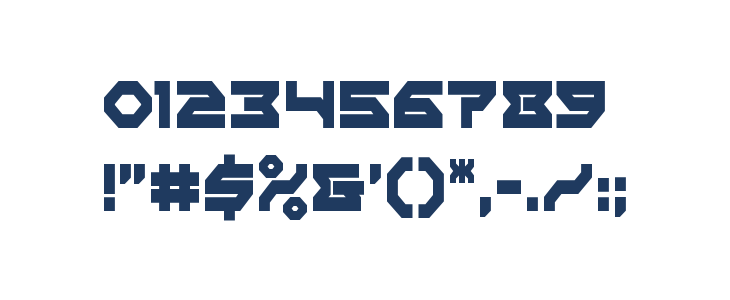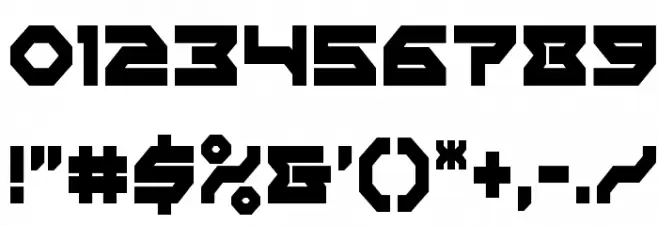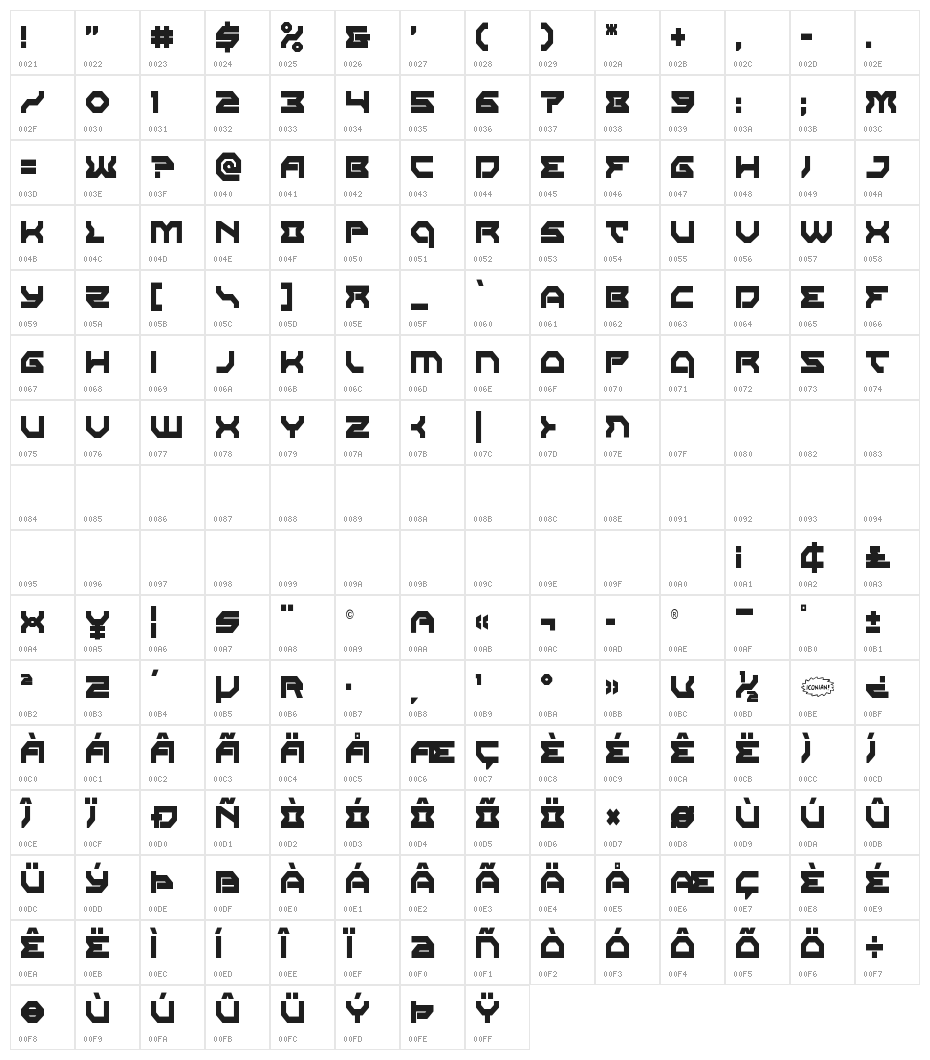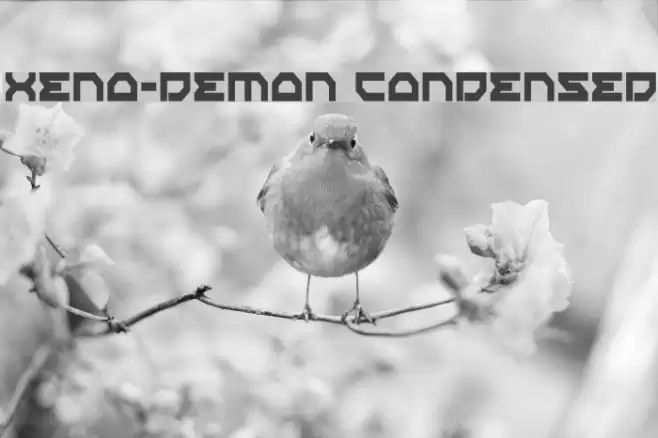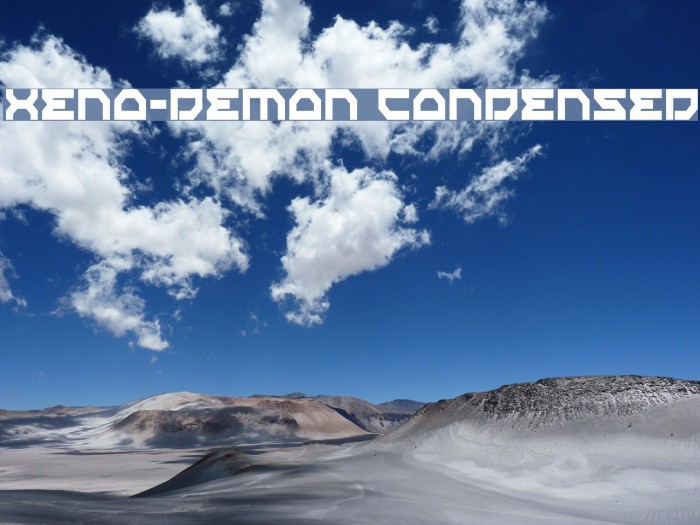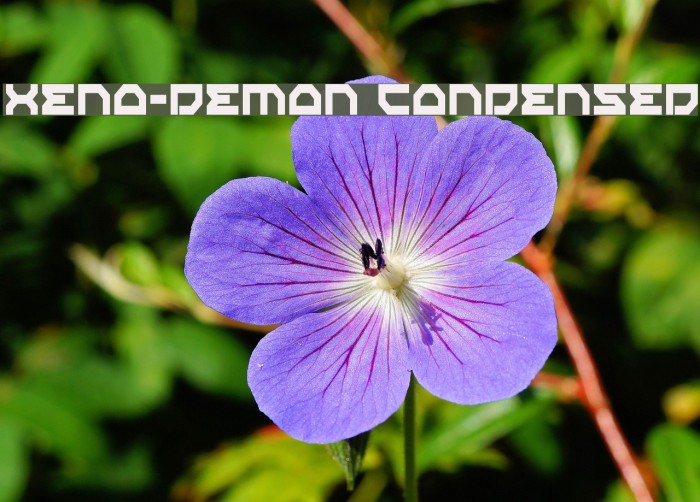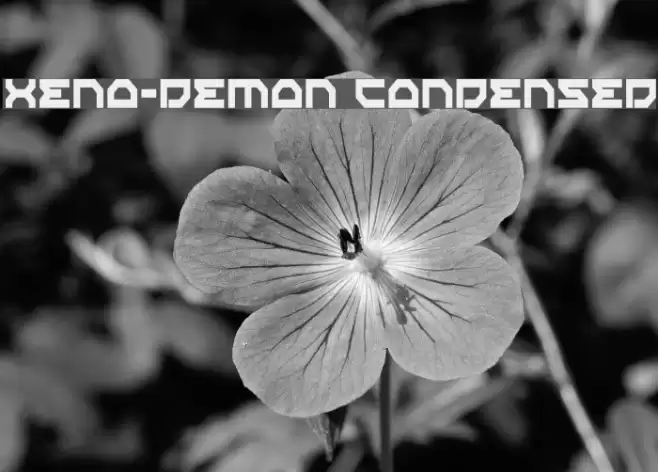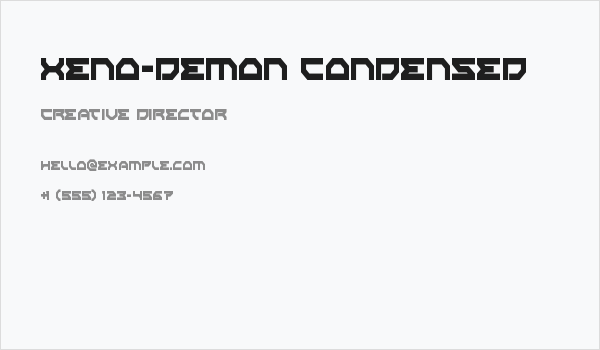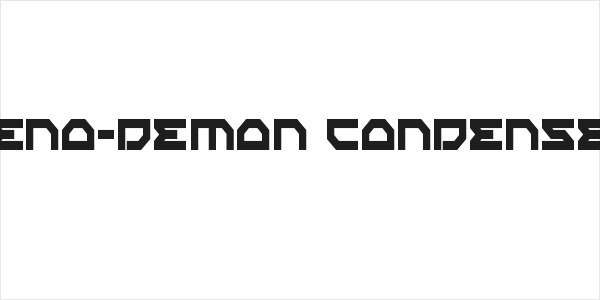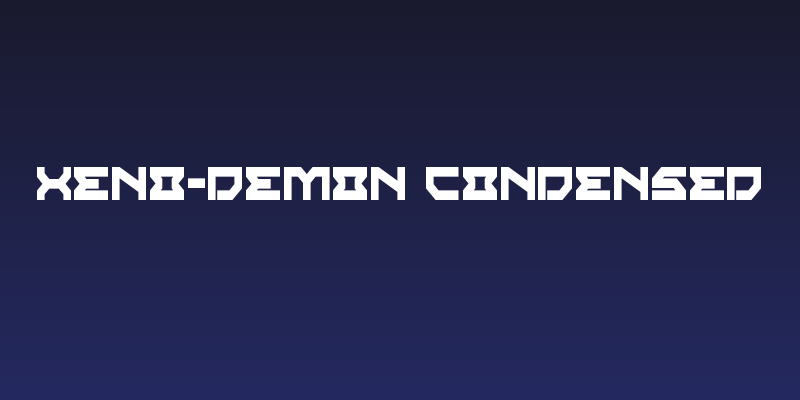
Xeno-Demon Condensed Font
Xeno-Demon Condensed Description
This font features a bold, geometric design with sharp angles and a futuristic aesthetic. The characters are condensed, creating a compact and efficient use of space. The uppercase and lowercase letters maintain a consistent style, with a focus on angular cuts and straight lines. Numbers and special characters follow the same design principles, ensuring uniformity across all glyphs. The font's unique style makes it stand out, ideal for projects that require a modern and edgy look.
| Overall Style | Futuristic, Edgy |
| Proposed Projects | Ideal for sci-fi themed designs, video game graphics, posters, and branding that requires a modern, edgy look. |